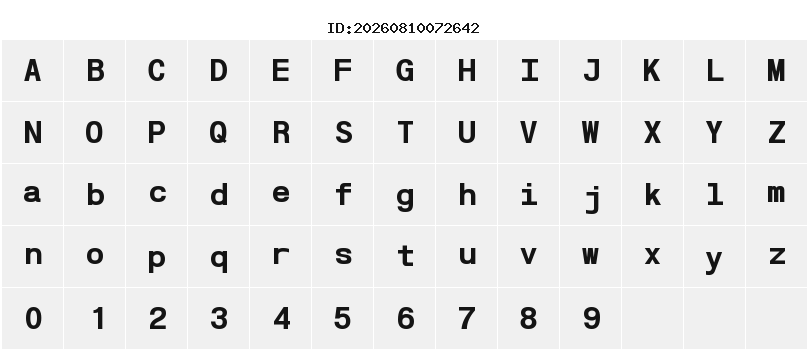
• Font Name: POE Vetica Monospace
• Designer: Daniel Lyons
• Manufacturer: The Powerhouse of Entertainment
• Description: Better than the previous version.
About POE Vetica Monospace.ttf
POE Vetica Monospace.ttf is a modern, elegant sans-serif font designed for ultimate readability and visual harmony. Perfect for branding, headlines, web design, and print materials.